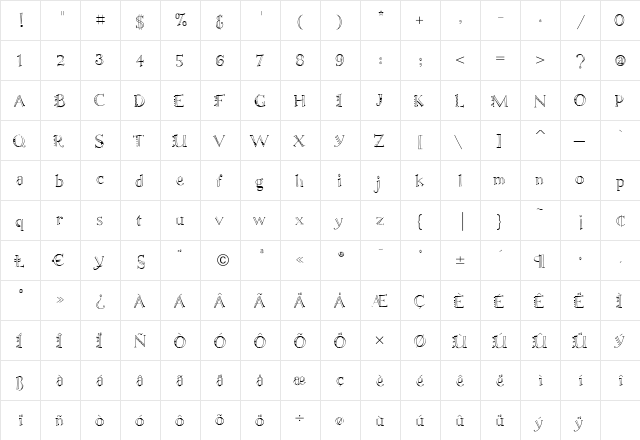
FiddlestixFunnyCaps Regular
Design Context for FiddlestixFunnyCaps Typeface
FiddlestixFunnyCaps has an approachable, lighthearted character — its loose, expressive forms are well-suited to children's content, casual branding, and fun-first design.
Well-suited to food and beverage brands with personality, educational materials, and fun-forward identities.
Font Pairing: Pairs well with a rounded or humanist sans for body copy, maintaining the friendly tone without relying on FiddlestixFunnyCaps to carry extended reading.
Pro Tip: Use FiddlestixFunnyCaps at larger display sizes where its expressive character can land. Pair with a clean, simple sans for body copy to maintain readability.